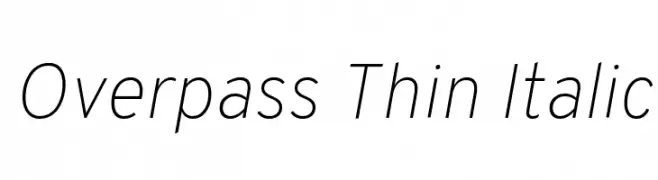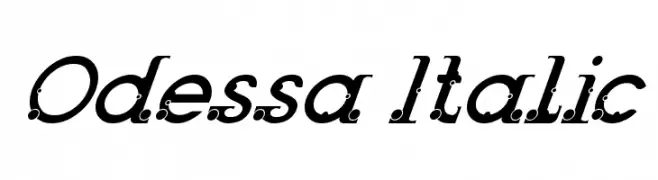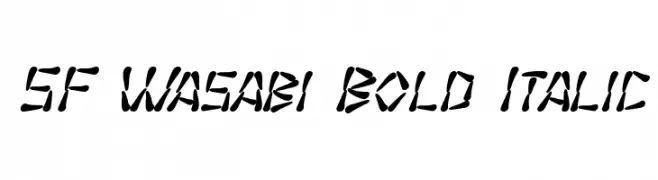
A sleek, modern, thin italic font with elegant proportions.
A bold, rugged font with a hand-drawn, textured appearance.
A classic serif font with balanced proportions and moderate contrast.
A charming and elegant handwritten font with fluid, graceful strokes.
A playful, italicized font with a unique dot pattern and high contrast strokes.
A bold, italicized font with a brush-like, dynamic style.